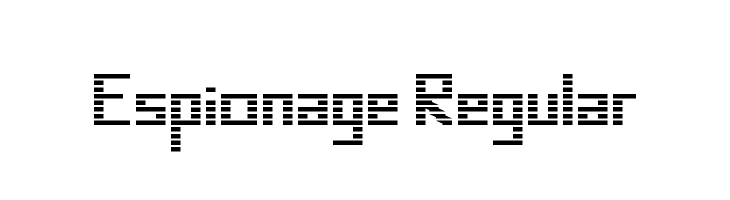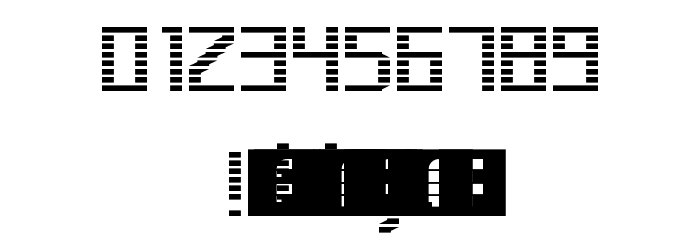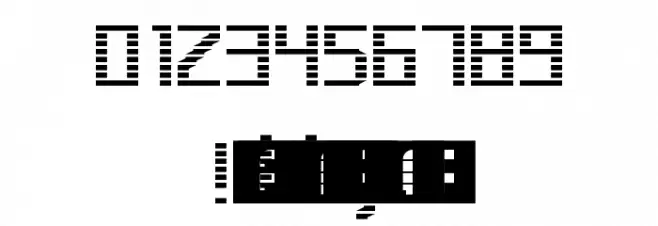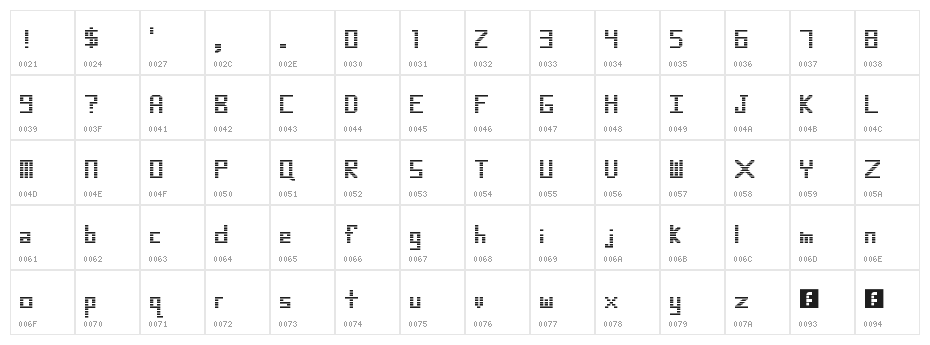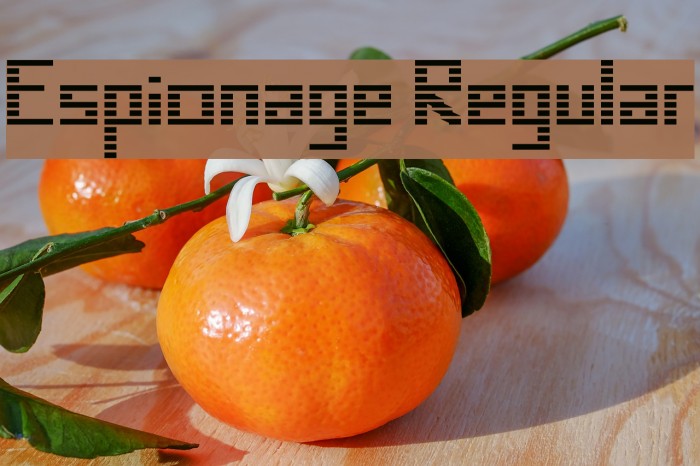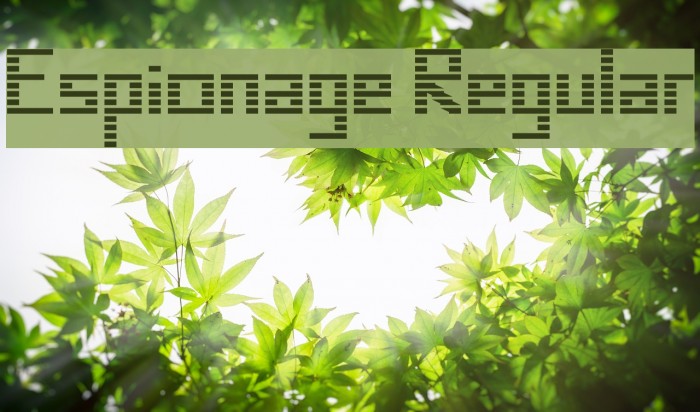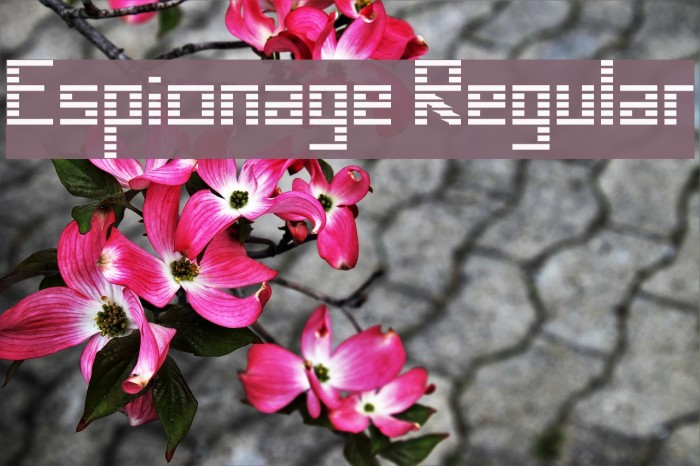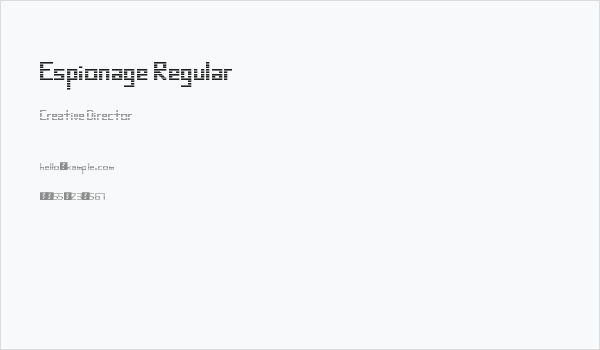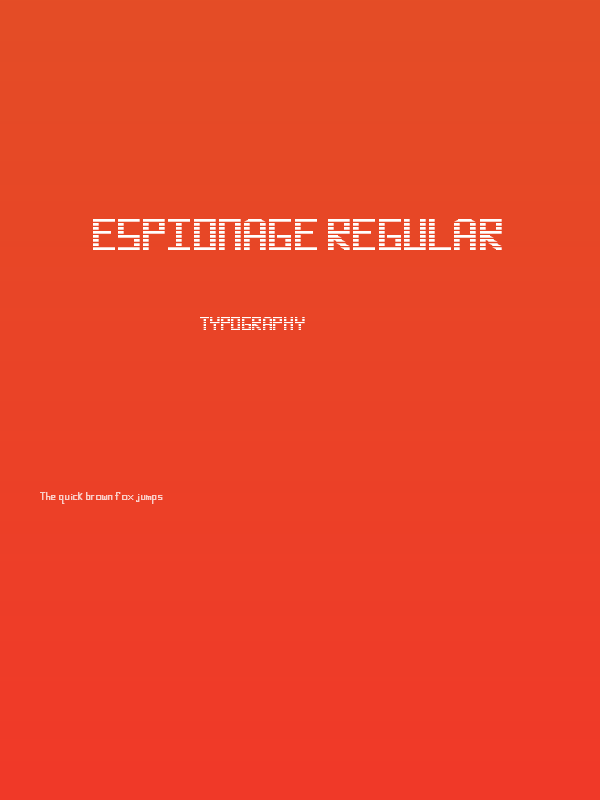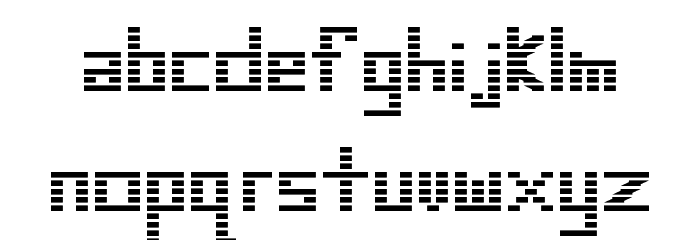
Espionage Regular Font
Espionage Regular Description
This font features a unique, digital-inspired design with a distinct, segmented appearance reminiscent of old-school computer displays or digital clocks. Each character is composed of horizontal lines that create a pixelated effect, giving it a futuristic and technological feel. The uppercase and lowercase letters maintain a consistent style, with sharp angles and a geometric structure. Numbers and special characters follow the same segmented pattern, ensuring a cohesive look across all glyphs. This font's distinctive style makes it ideal for projects that require a modern, tech-savvy aesthetic.
| Use Case | Logos, Headlines, Digital displays |
| Proposed Projects | Ideal for tech-themed designs, digital interfaces, video game graphics, and futuristic branding. |